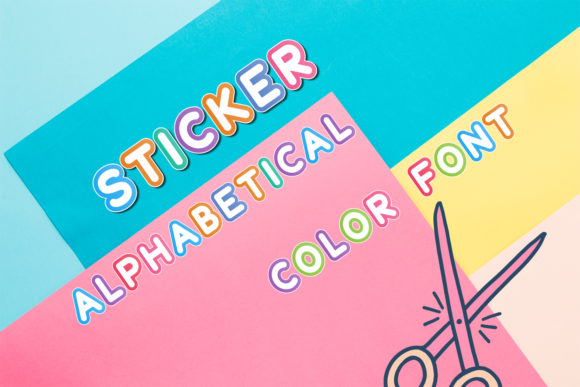
Introducing Sticker Alphabetical Font: The Bold yet Friendly Display Font
In the world of typography, fonts play a crucial role in conveying messages, expressing emotions, and adding personality to designs. Among the numerous fonts available, Sticker Alphabetical Font stands out as a bold yet friendly display font that has been carefully handcrafted to become a true favorite among designers and creative enthusiasts. In this article, we’ll explore the features, benefits, and uses of Sticker Alphabetical Font, and how it can help brighten up your projects.
What is Sticker Alphabetical Font?
Sticker Alphabetical Font is a unique and eye-catching display font designed to make a statement. Its bold and friendly appearance makes it perfect for use in various design projects, including posters, flyers, brochures, logos, and more. The font’s handcrafted nature ensures that each letter is carefully crafted to provide a distinctive and personalized touch to your designs.
Key Features of Sticker Alphabetical Font
- Bold and Friendly Design: Sticker Alphabetical Font boasts a bold yet friendly design that is sure to grab attention and leave a lasting impression.
- Handcrafted with Love: Each letter is carefully handcrafted to provide a unique and personalized touch to your designs.
- Display Font: Sticker Alphabetical Font is specifically designed as a display font, making it perfect for use in headlines, titles, and other prominent design elements.
- Multipurpose: This font can be used in a wide range of design projects, from print materials to digital applications.
The Benefits of Using Sticker Alphabetical Font
Using Sticker Alphabetical Font in your design projects offers numerous benefits. Here are a few:
- Adds Personality to Your Designs: Sticker Alphabetical Font’s unique and handcrafted nature allows you to add a personal touch to your designs, setting them apart from others.
- Enhances Readability: The font’s bold design ensures that your text is easily readable, even at smaller sizes.
- Versatile: Sticker Alphabetical Font can be used in a variety of design projects, making it a valuable addition to your font library.
- Time-Saving: With Sticker Alphabetical Font, you can quickly and easily create stunning designs without spending hours on typography.
How to Use Sticker Alphabetical Font
Using Sticker Alphabetical Font is easy and straightforward. Here are a few tips to get you started:
- Pair it with Other Fonts: Combine Sticker Alphabetical Font with other fonts to create a unique and visually appealing typography.
- Experiment with Colors: Try out different colors and gradients to add an extra layer of depth to your designs.
- Play with Sizes: Experiment with different font sizes to create visual hierarchy and emphasis in your designs.
- Add Texture and Patterns: Add texture and patterns to your designs to give them an extra layer of interest.
Project Ideas Using Sticker Alphabetical Font
Sticker Alphabetical Font is a versatile font that can be used in a wide range of design projects. Here are a few ideas to get you started:
- Poster Design: Create eye-catching posters for events, promotions, or awareness campaigns.
- Logo Design: Use Sticker Alphabetical Font to create unique and memorable logos for businesses or brands.
- Brochure Design: Design stunning brochures for companies, products, or services.
- Social Media Graphics: Create engaging social media graphics, such as Facebook posts, Instagram stories, or Twitter headers.
In conclusion, Sticker Alphabetical Font is a bold yet friendly display font that is sure to become a true favorite among designers and creative enthusiasts. Its handcrafted nature, versatility, and ease of use make it an excellent addition to any font library. With Sticker Alphabetical Font, you can add personality, enhance readability, and create stunning designs that leave a lasting impression.